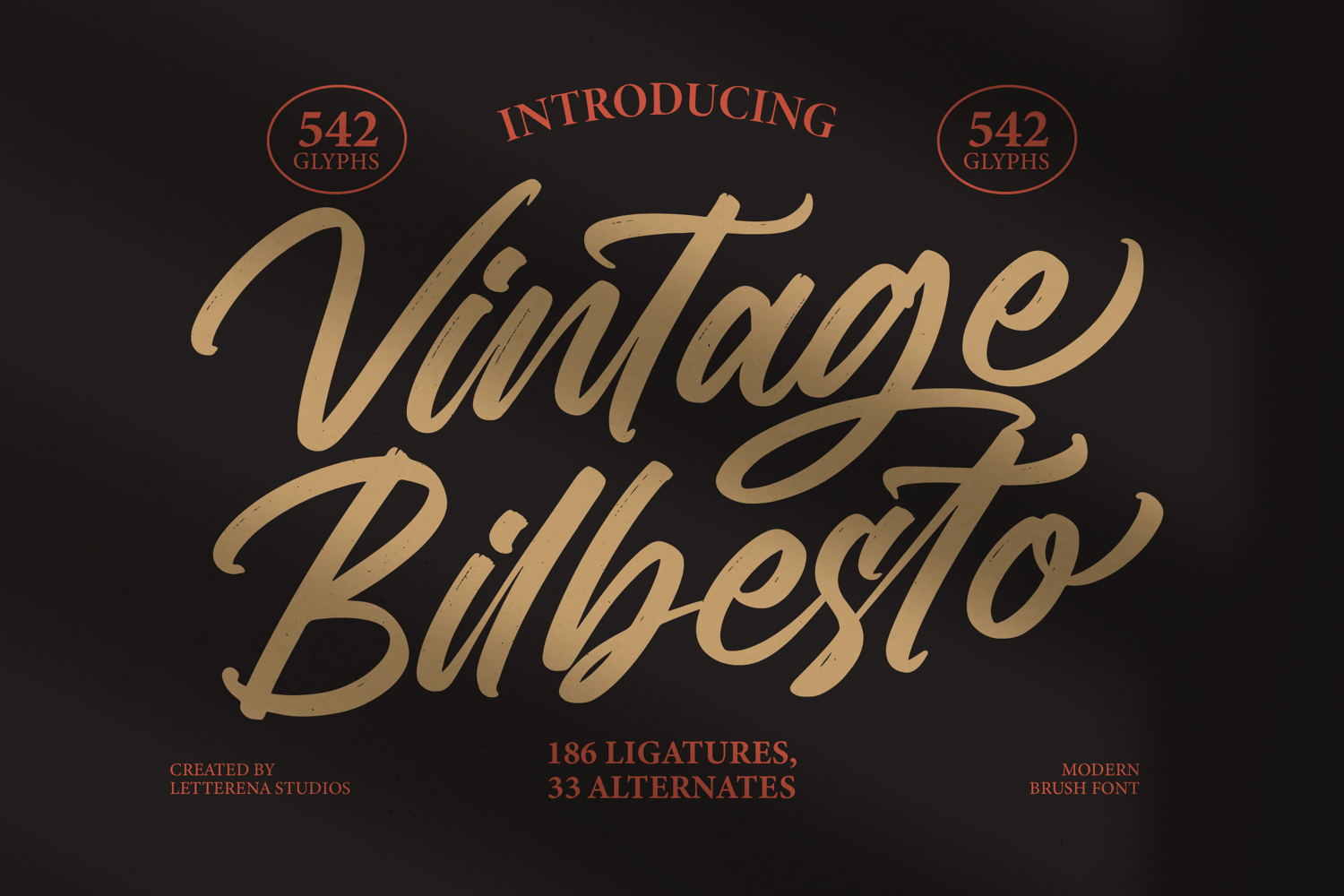
Vintage Bilbesto Modern Brush Font
Vintage Bilbesto – Modern Brush Font , from Letterena, is a Luxury Script font, suitable for any projects such as: logos, branding projects, homeware designs, product packaging, mugs, quotes, posters, shopping bags, t-shirts, book covers, name card, invitation cards, greeting cards, label, photography, watermark, special events, and all your other luxury and beautiful projects that need a Luxury Script taste.
• Standard glyphs
• Alternate and Ligature